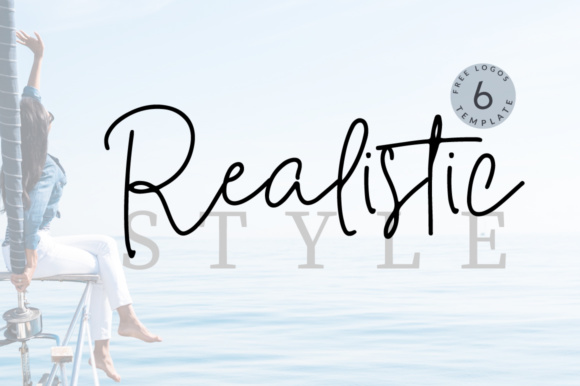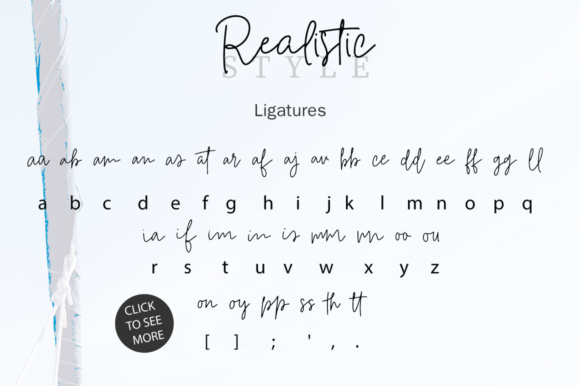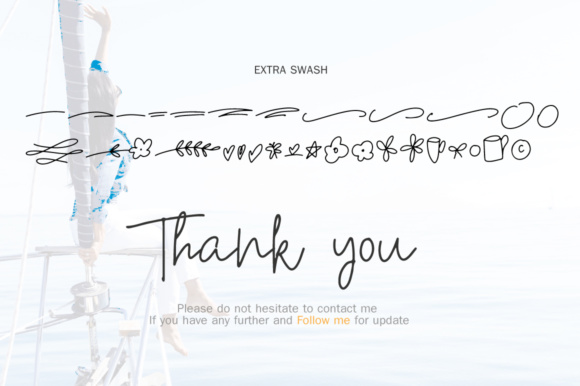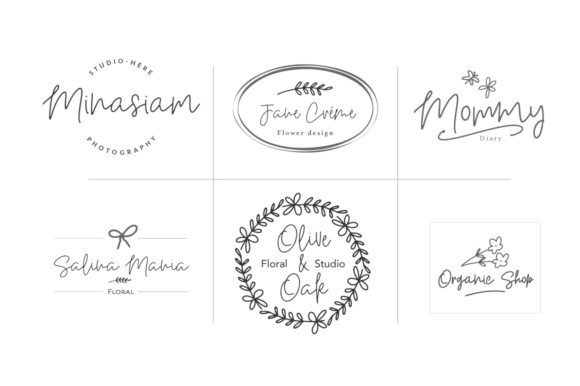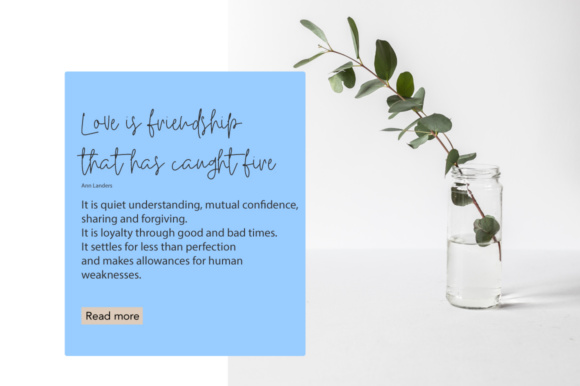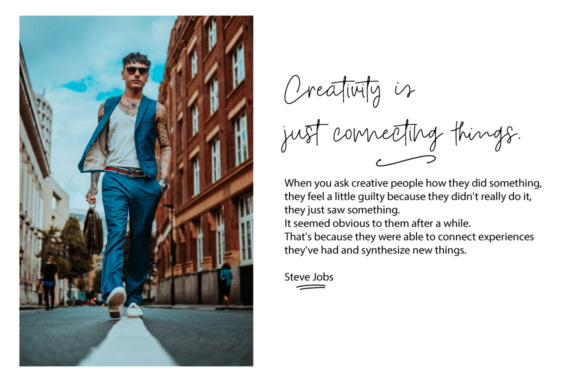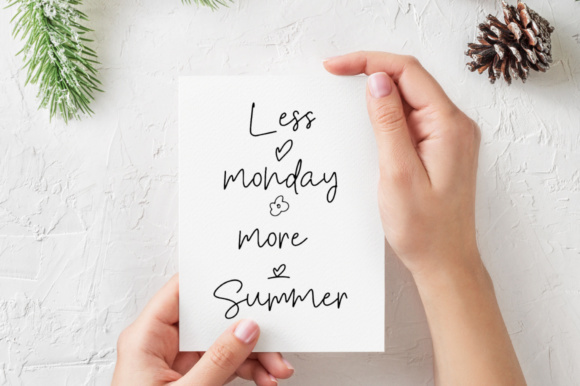
Realistic Font
About Realistic Font
The Realistic is a fashionable font, perfect for high impact headlines. Every single letter has been carefully created to create a playful new font which can be used in every design.